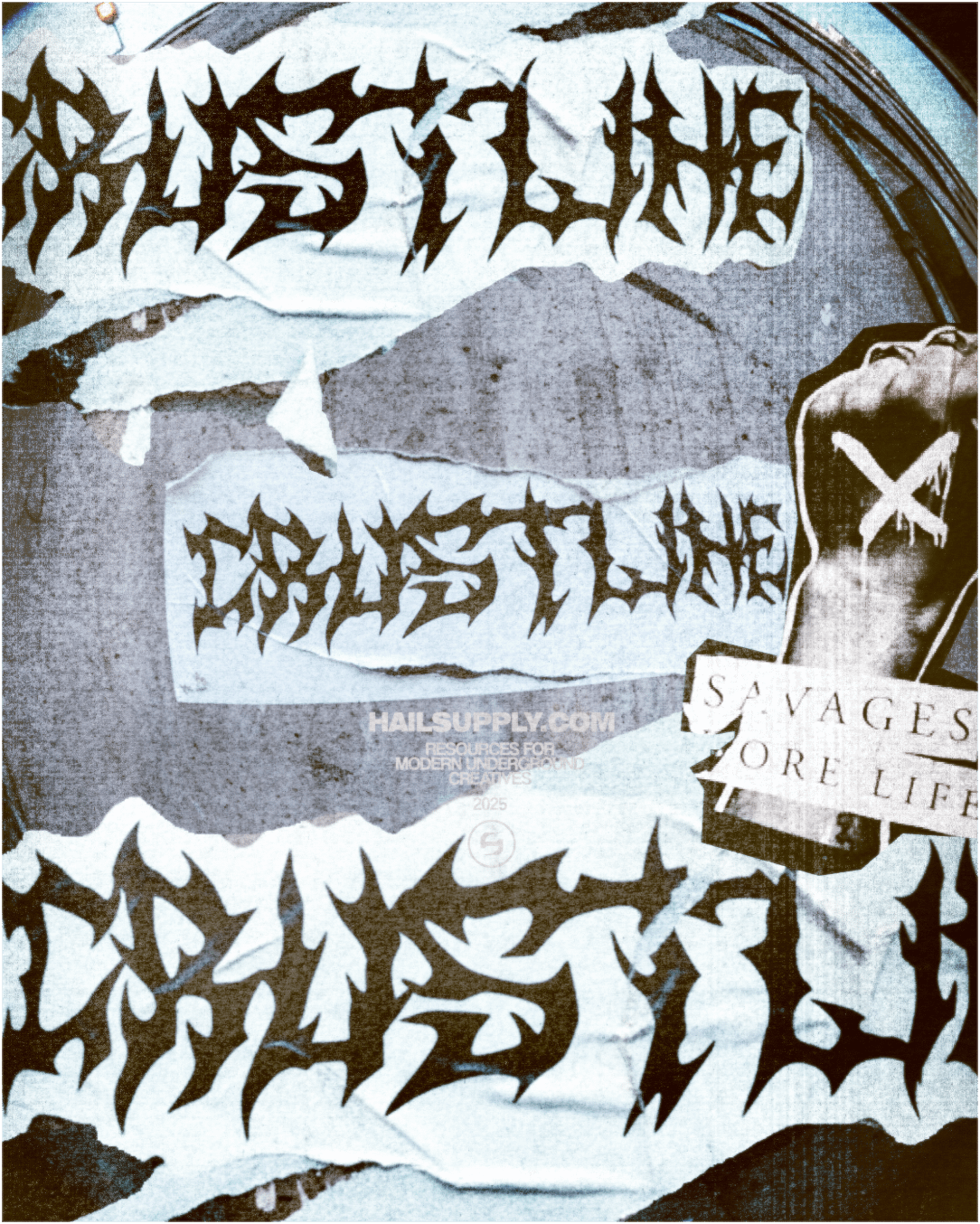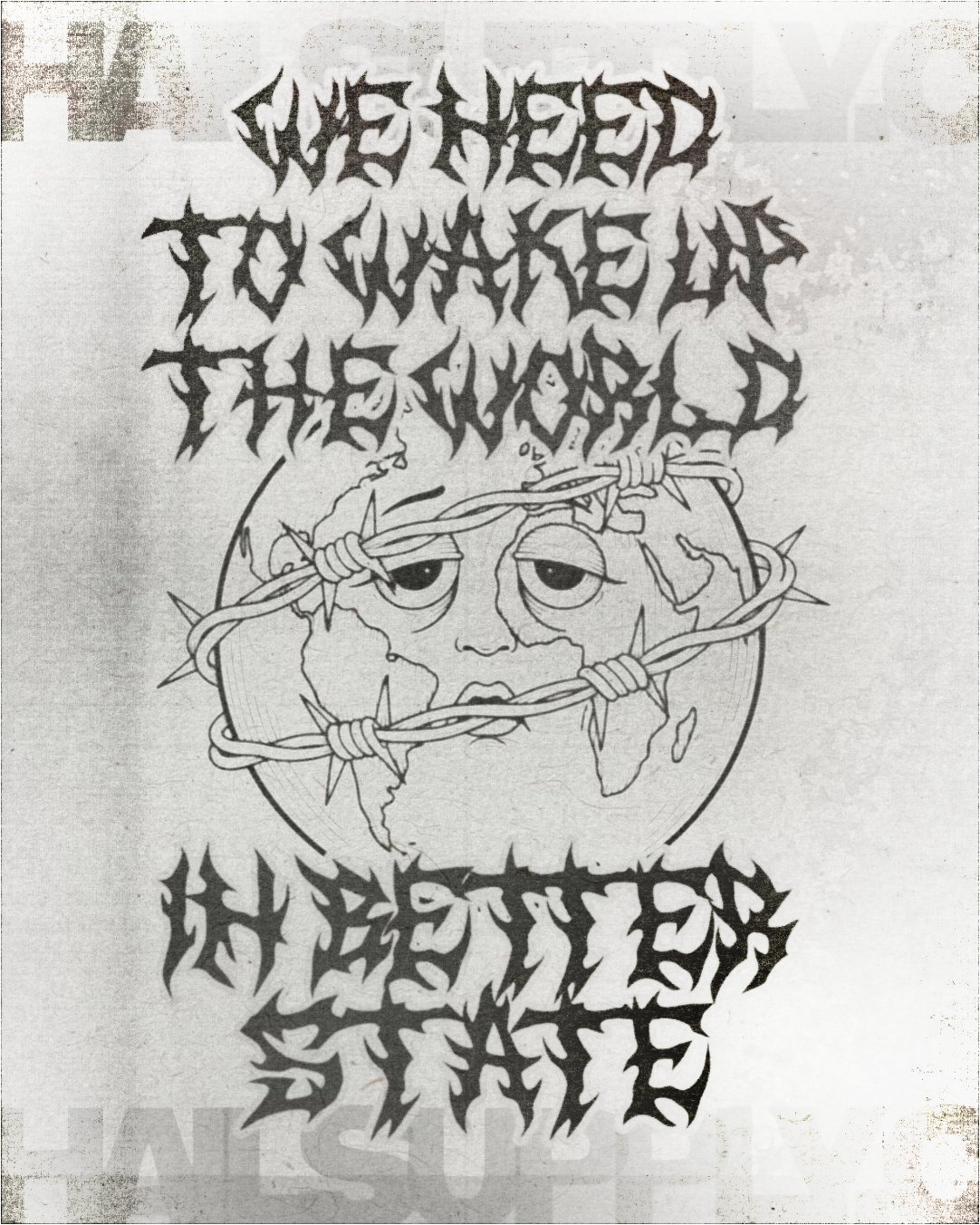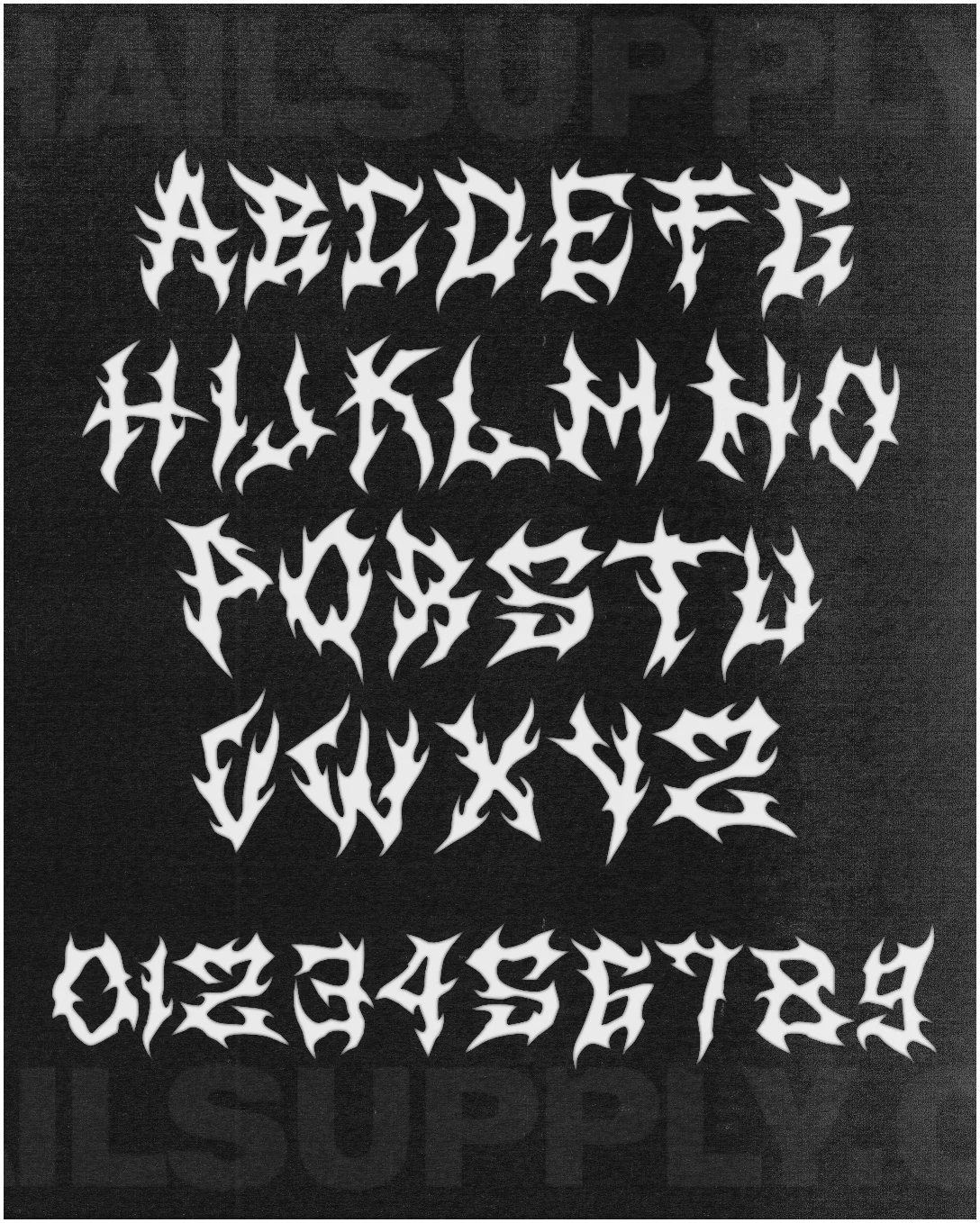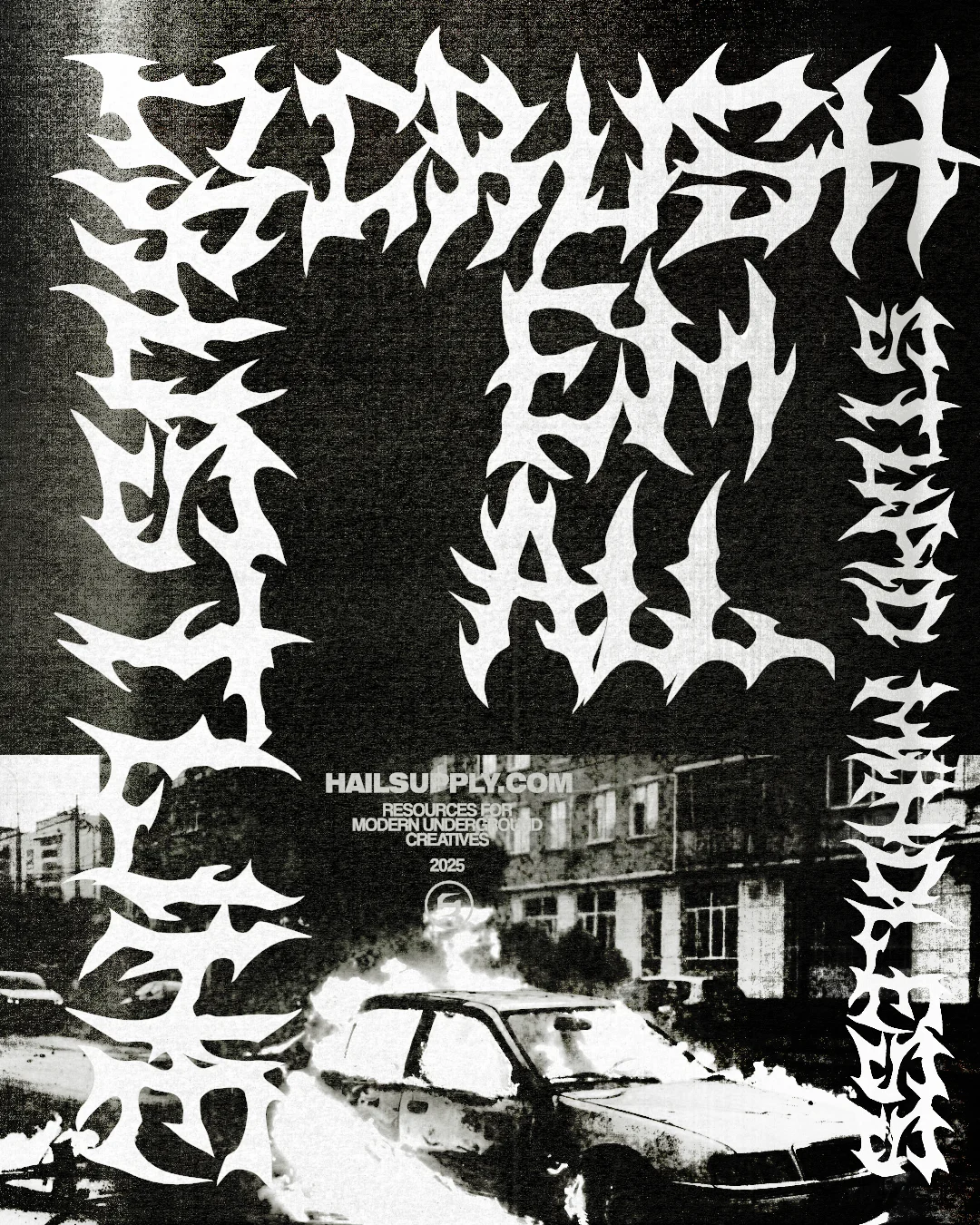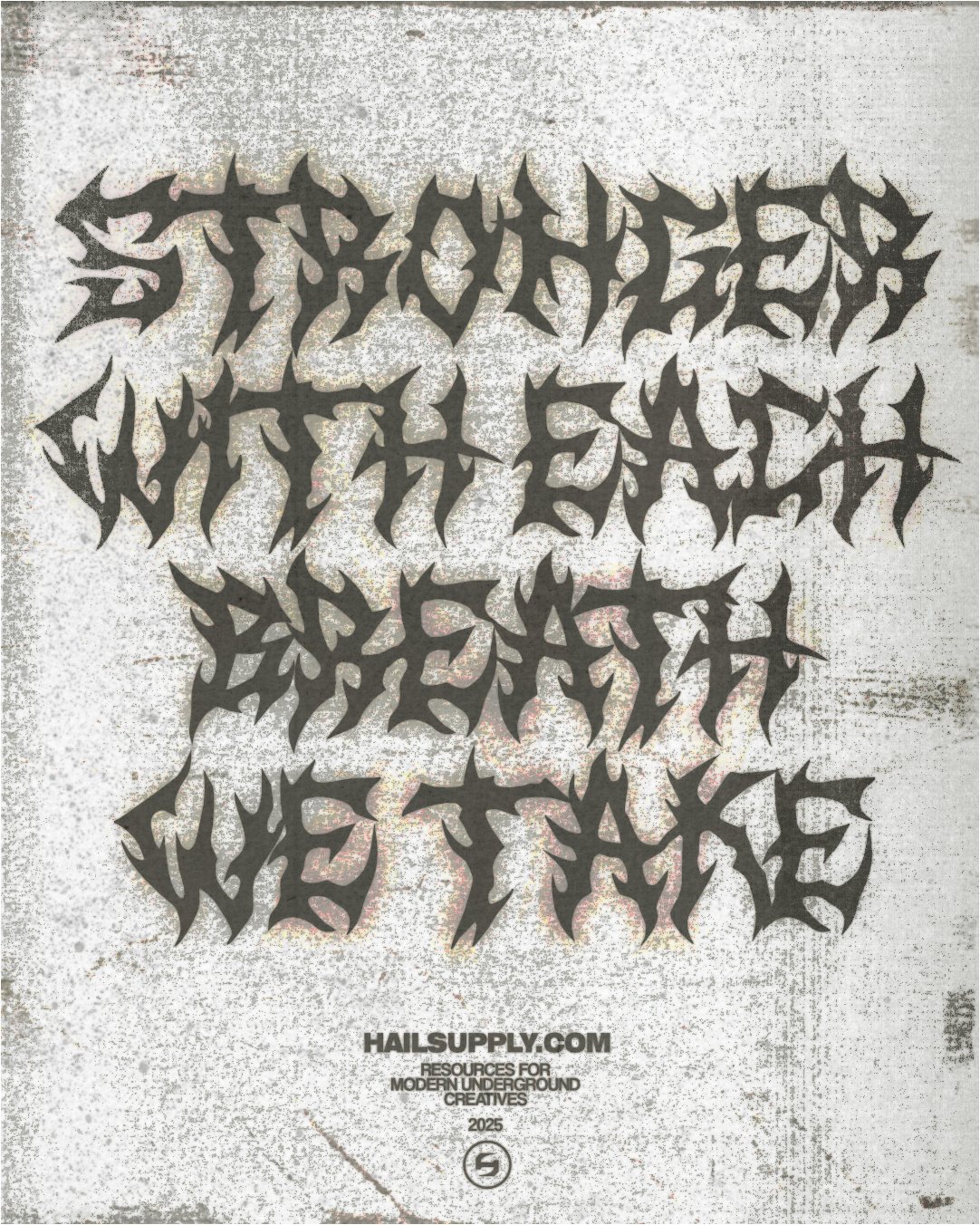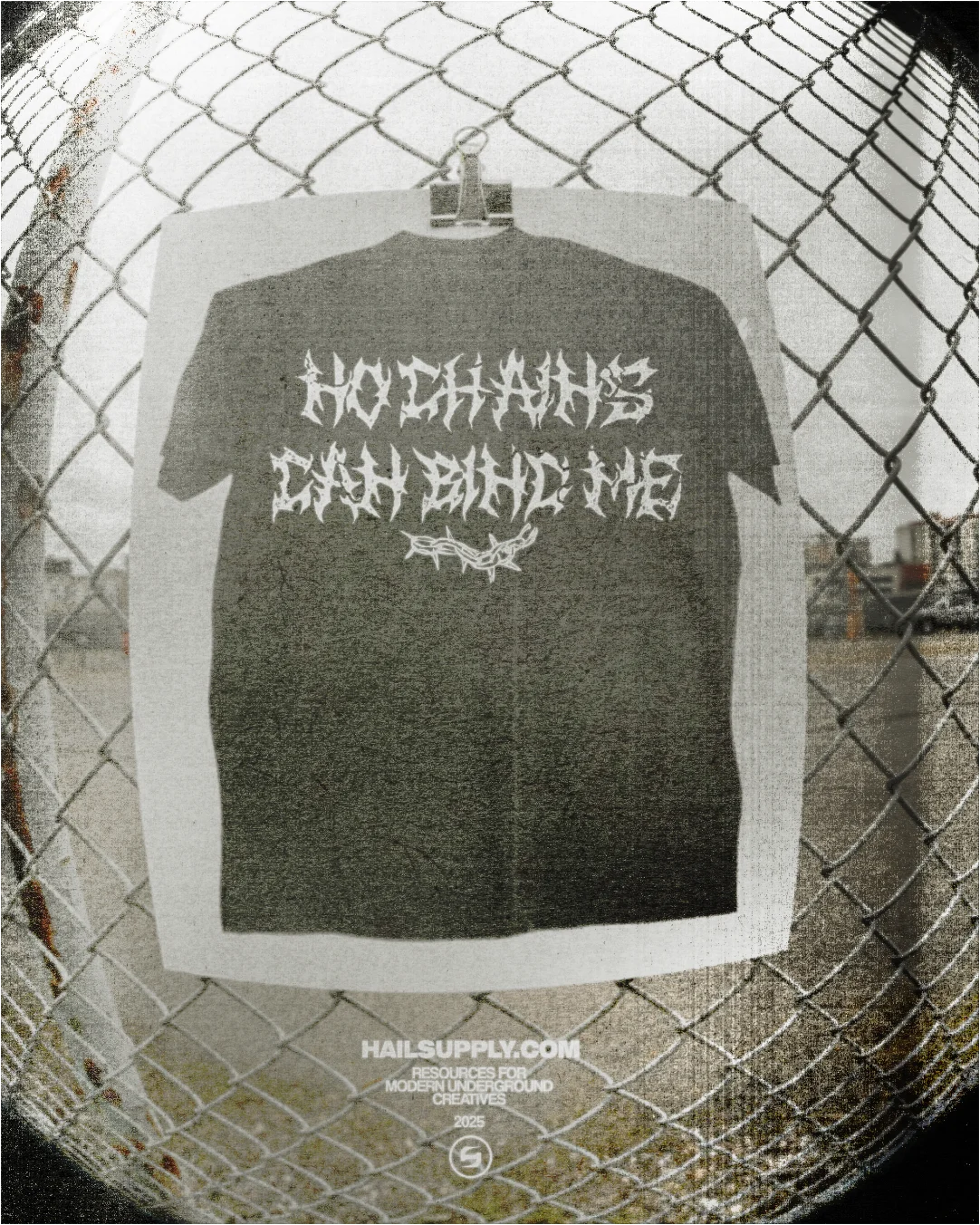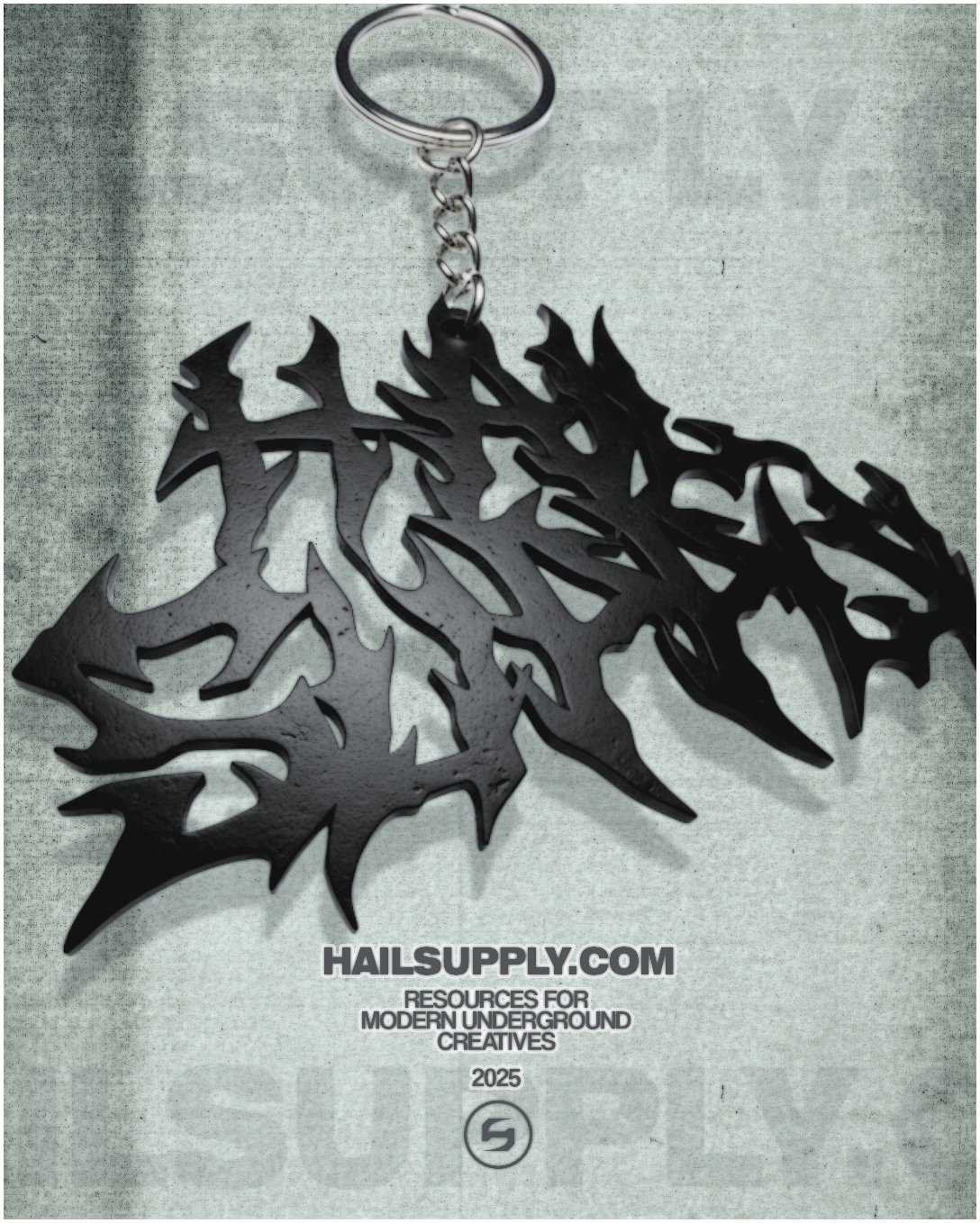
CRUSTLINE DISPLAY FONT
Born from the chaos of hardcore and the grit of underground metal, CRUSTLINE is a hand-drawn, all-caps typeface built for designers who want their work to hit like a breakdown. Every letter is sharp, jagged, and unapologetically bold—capturing the raw energy of DIY punk zines, hardcore flyers, and extreme music culture.
The strokes are dirty and grungy, yet carefully crafted to hold a strong, legible structure. It’s not just a font—it’s a weapon for creating designs that scream attitude. Perfect for:
🔹Hardcore & metal band merch
🔹DIY zines & underground posters
🔹Album covers & flyer layouts
🔹Alternative streetwear graphics
🔹Style: All Caps (A–Z)
🔹Includes: Numbers (0–9)
🔹Hand-drawn for authentic grit
If your design calls for chaos, CRUSTLINE delivers it—loud, sharp, and unstoppable.